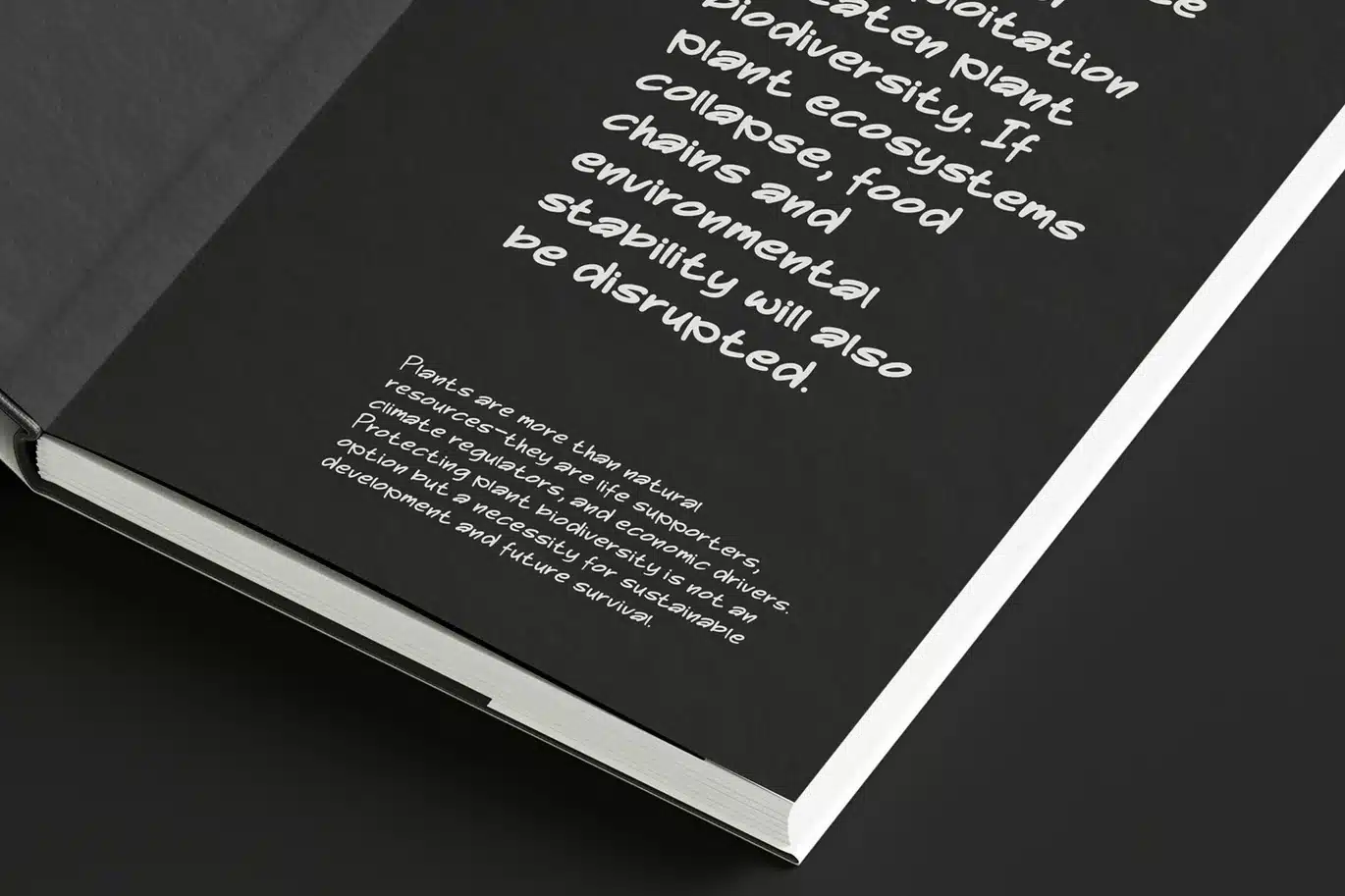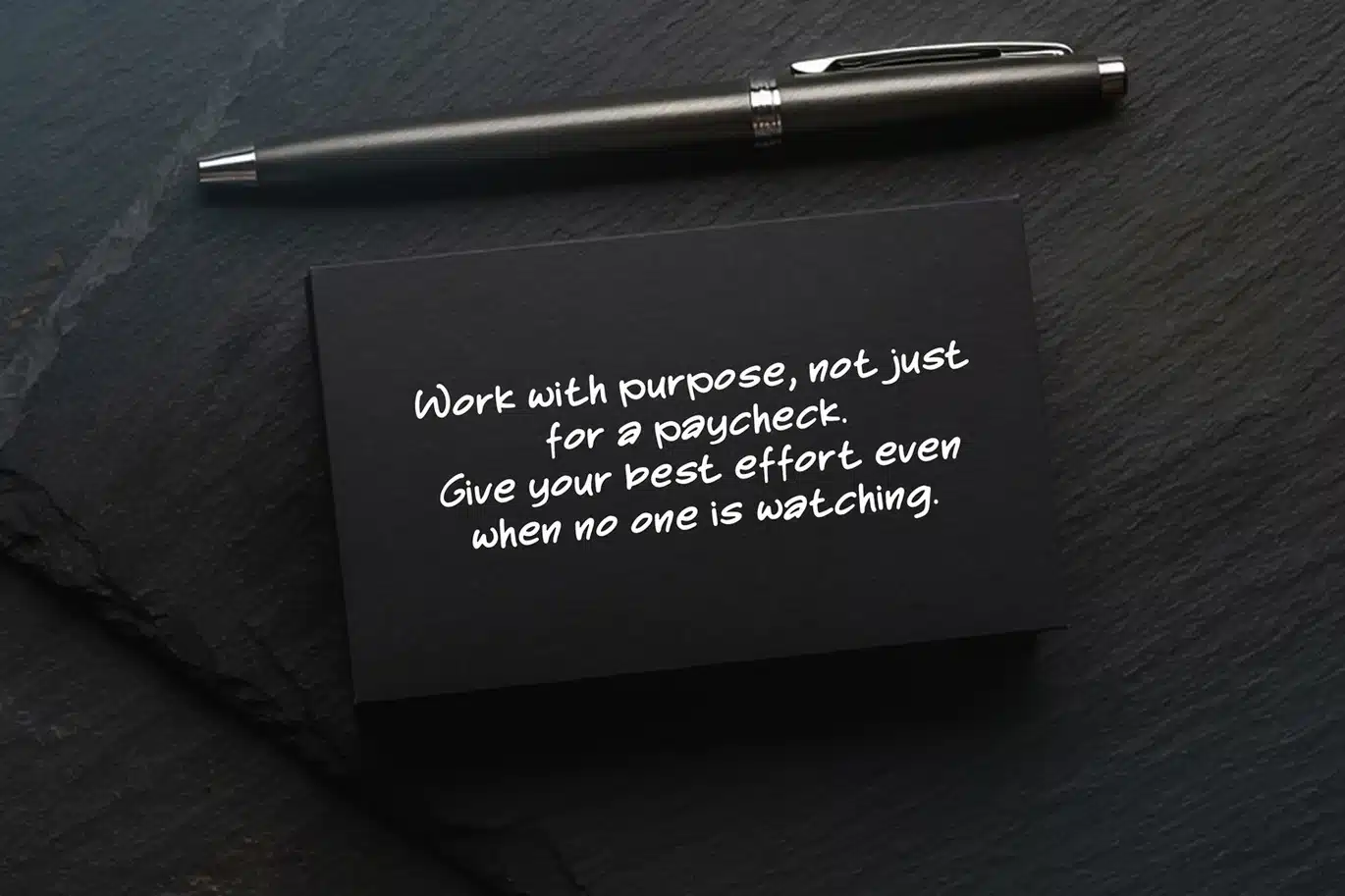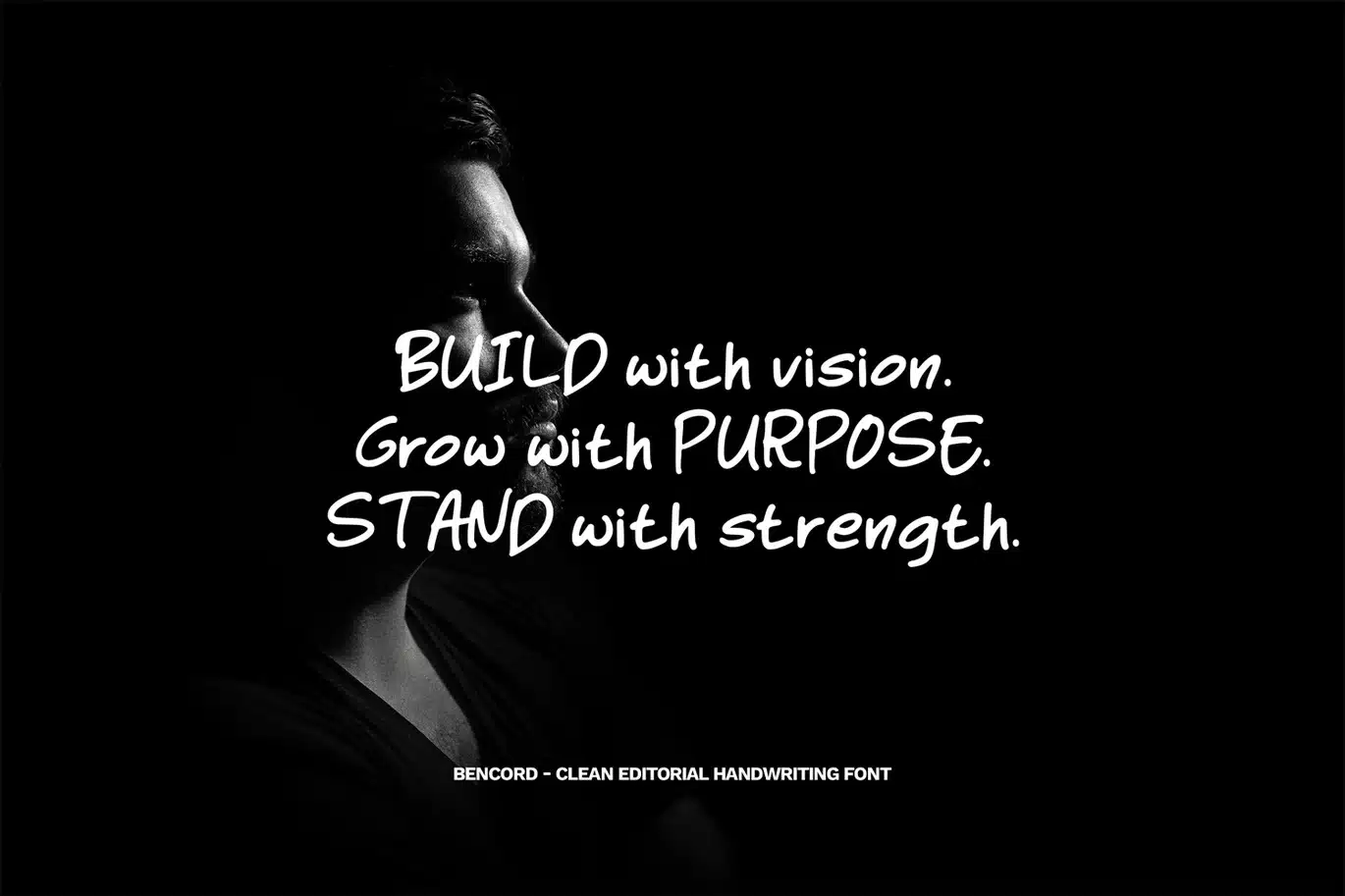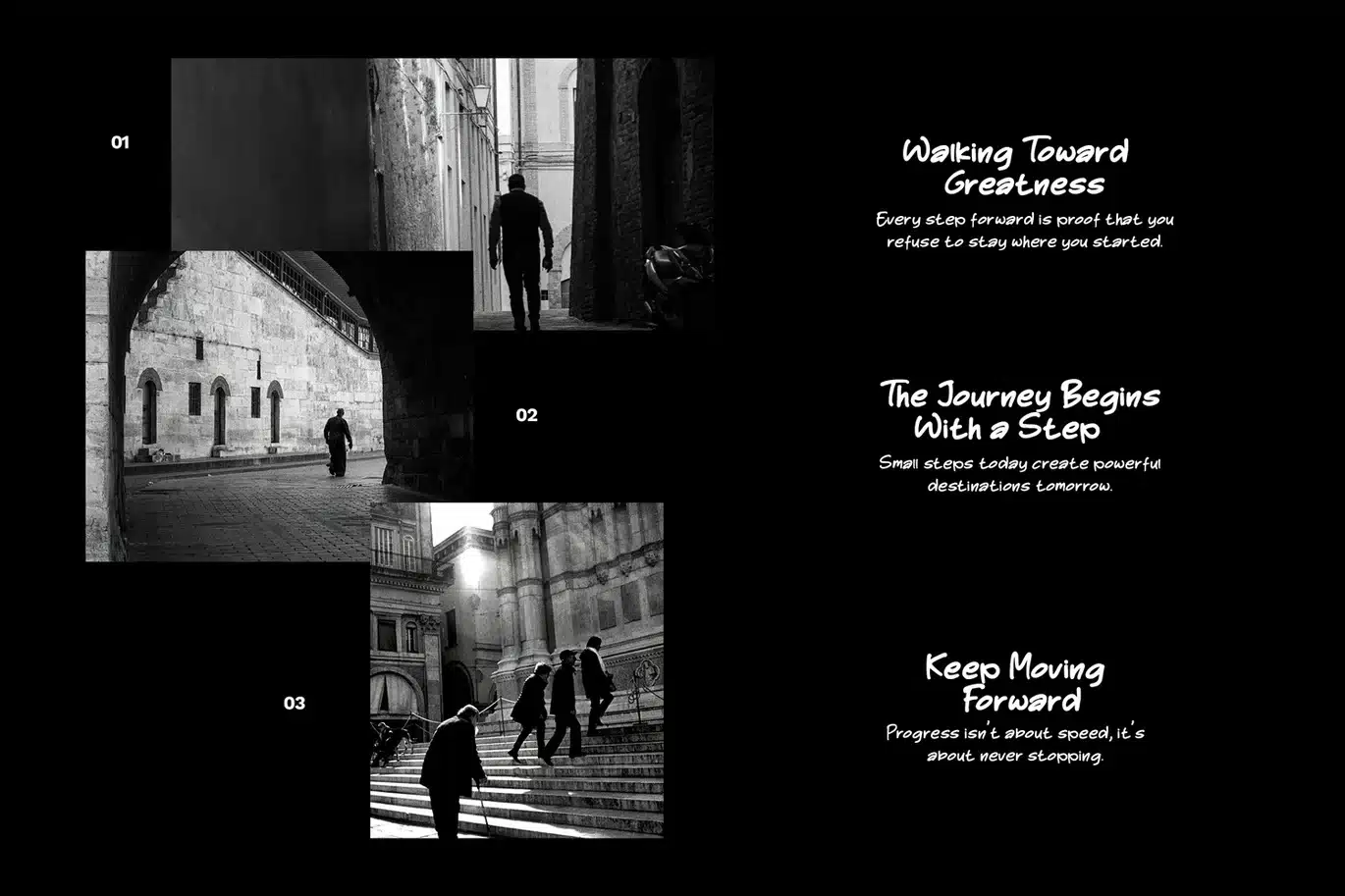
Bencord – Clean Editorial Handwriting Font
Bencord is a clean editorial handwriting font designed with refined strokes and modern simplicity. Blending natural handwritten character with a structured and minimal form, this font delivers a polished and professional appearance. Its smooth flow and balanced spacing create excellent readability while maintaining a subtle personal touch.
Bencord is perfect for editorials, magazines, branding, websites, presentations, and modern design layouts that require a clean handwritten style with elegance and clarity.